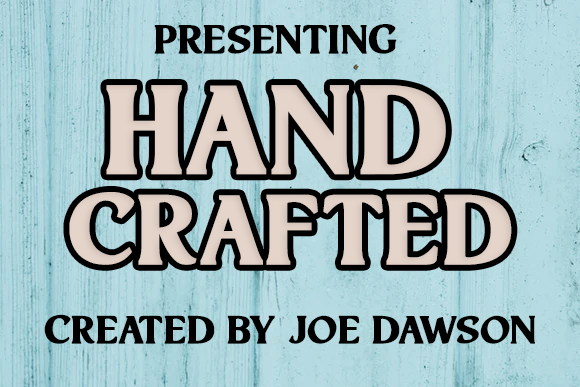
Introducing Hand Crafted Font: Unleash Your Creativity with a Touch of Quirkiness
In the world of typography, fonts play a crucial role in conveying the tone and personality of a brand or creative project. If you’re a designer, crafter, or DIY enthusiast looking for a font that embodies fun, quirkiness, and authenticity, look no further than Hand Crafted Font. This enchanting display font is designed to turn any creative idea into a true standout, making it perfect for projects that require a personal touch.
The Charm of Hand Crafted Font
Hand Crafted Font is a unique and eye-catching typeface that is sure to capture attention. Its hand-crafted aesthetic gives it a warm, organic feel that is reminiscent of handwritten notes, crafty signs, and DIY projects. The font’s irregularities and imperfections add to its charm, making it feel more approachable and human.
Whether you’re designing a logo, creating a social media graphic, or crafting a handmade card, Hand Crafted Font is the perfect choice. Its versatility and playfulness make it suitable for a wide range of creative projects, from whimsical and fun to elegant and sophisticated.
Key Features of Hand Crafted Font
- Unique and Quirky: Hand Crafted Font boasts a distinctive, one-of-a-kind design that sets it apart from more traditional fonts.
- Hand-Crafted Aesthetic: The font’s hand-crafted look and feel give it a warm, organic appearance that is perfect for DIY projects and creative endeavors.
- Versatile: Hand Crafted Font can be used for a wide range of projects, from logos and graphics to cards and invitations.
- Easy to Read: Despite its quirky nature, Hand Crafted Font is surprisingly easy to read, making it suitable for both headlines and body text.
Why Choose Hand Crafted Font?
So why choose Hand Crafted Font over other fonts? Here are just a few reasons:
- Authenticity: Hand Crafted Font embodies the spirit of handmade and DIY projects, making it perfect for crafters, makers, and small business owners.
- Personality: This font has a unique personality that shines through in every letter and symbol, adding a touch of whimsy to any project.
- Creativity: Hand Crafted Font is designed to inspire creativity and spark imagination, making it the perfect choice for artists, writers, and designers.
Tips for Using Hand Crafted Font
To get the most out of Hand Crafted Font, here are a few tips:
- Use it sparingly: Hand Crafted Font is best used in moderation, as its bold and quirky nature can be overwhelming if overused.
- Pair it with neutrals: Balance out the font’s playfulness with neutral colors and clean typography to create a visually appealing contrast.
- Experiment with sizes: Hand Crafted Font looks great in a variety of sizes, from large headlines to smaller body text.
Hand Crafted Font is a unique and captivating typeface that embodies the spirit of creativity, quirkiness, and authenticity. Whether you’re a designer, crafter, or DIY enthusiast, this enchanting display font is sure to turn your creative ideas into standout projects. With its hand-crafted aesthetic, versatility, and playfulness, Hand Crafted Font is the perfect choice for anyone looking to add a touch of personality to their work.